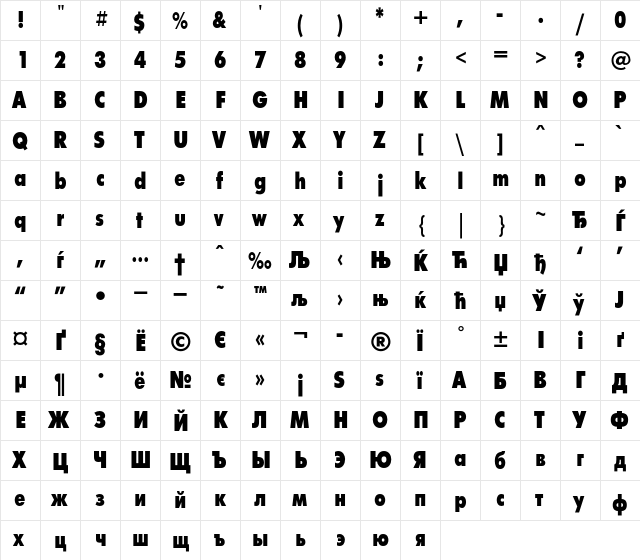
FuturisXCondC Regular Font Preview
FuturisXCondC Regular
FuturisXCondC Regular Font Details
Design Context for FuturisXCondC Typeface
FuturisXCondC has a distinctly futuristic character, with geometric precision and clean angles that feel at home in technology, gaming, and sci-fi contexts. The condensed width makes it efficient for tight spaces without sacrificing legibility.